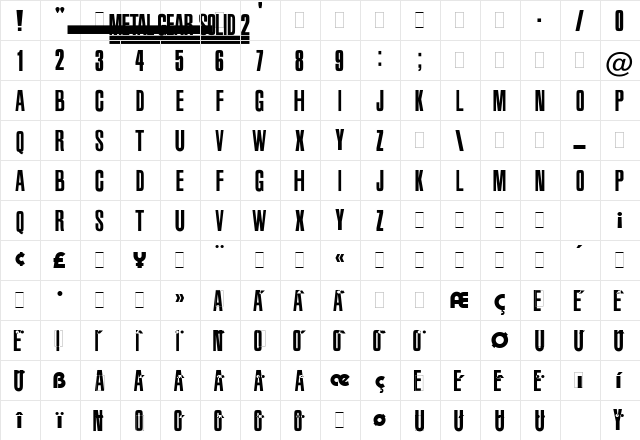
Metal Gear Solid 2 Regular
Design Context for Metal Gear Solid 2 Typeface
Metal Gear Solid 2 takes a measured approach to typography — its balanced proportions and neutral character make it a reliable workhorse for both digital and print work.